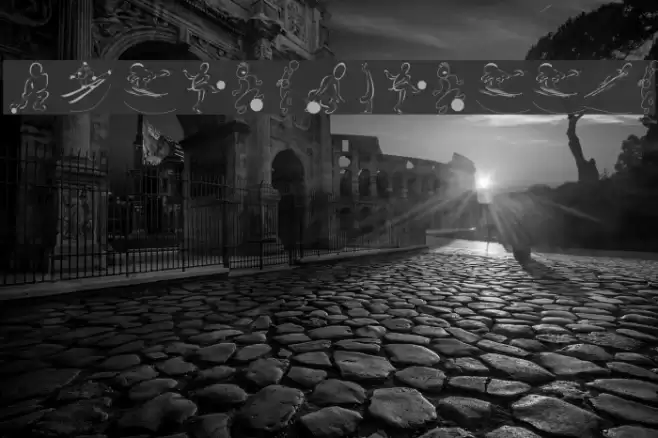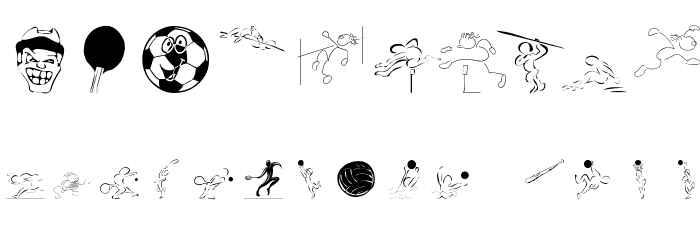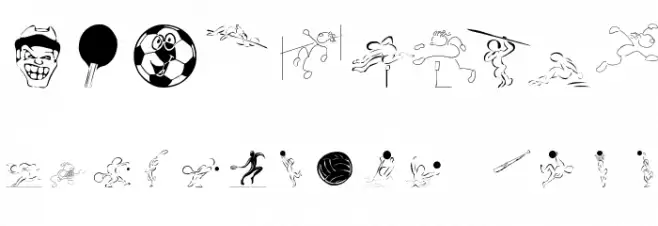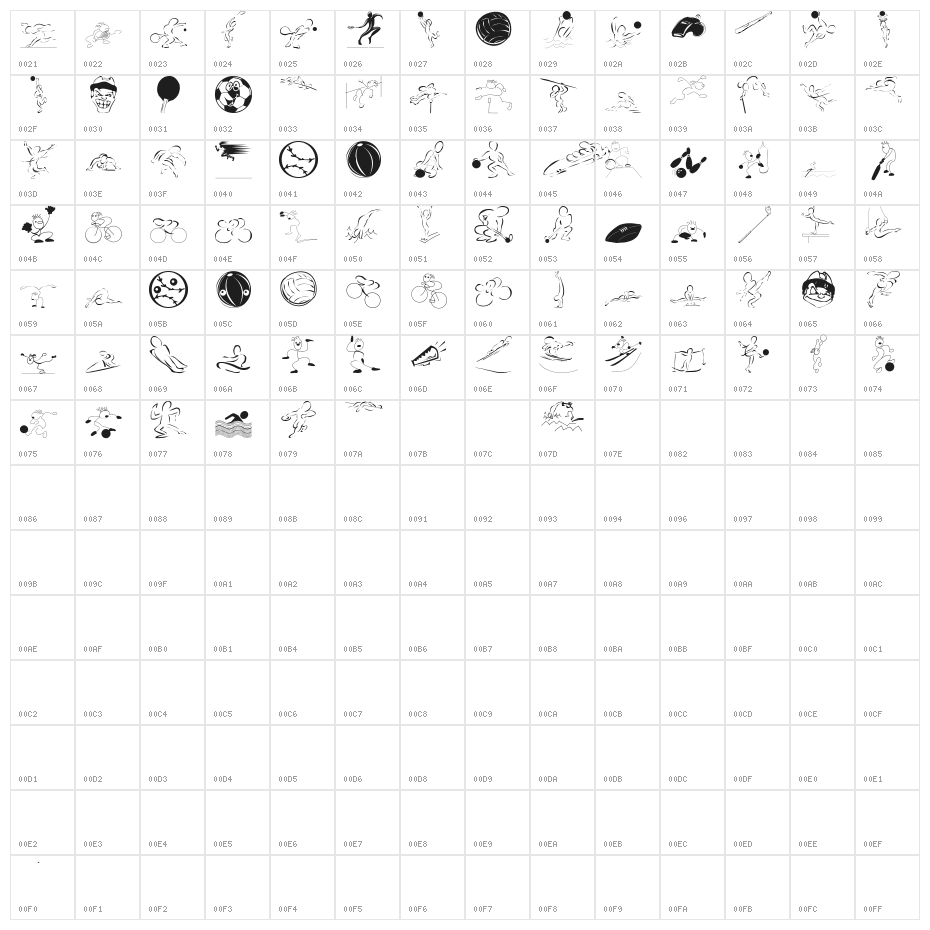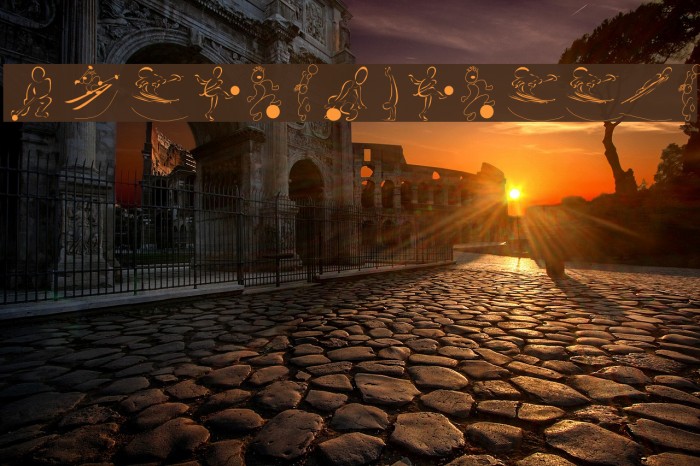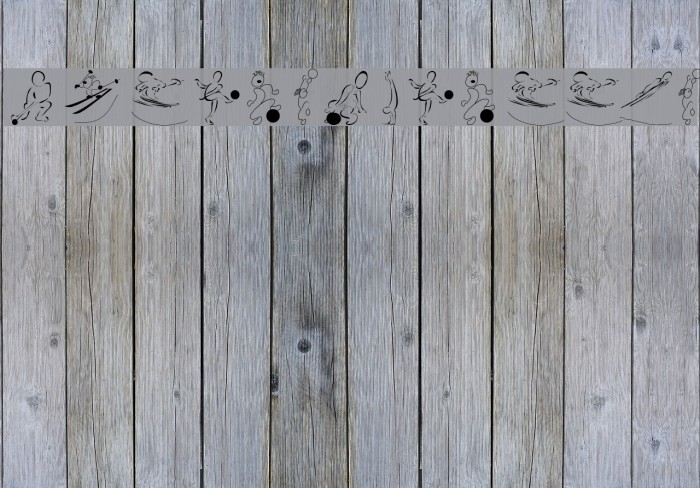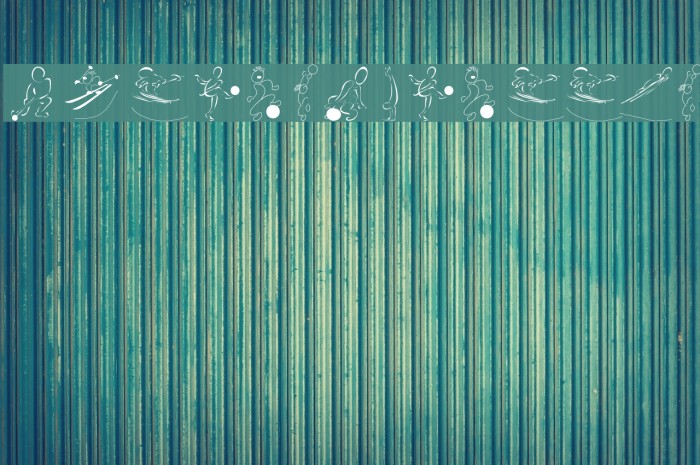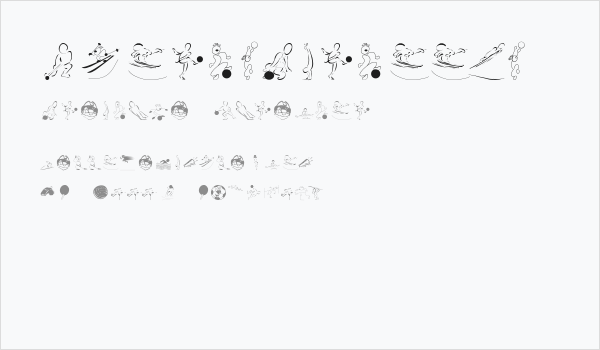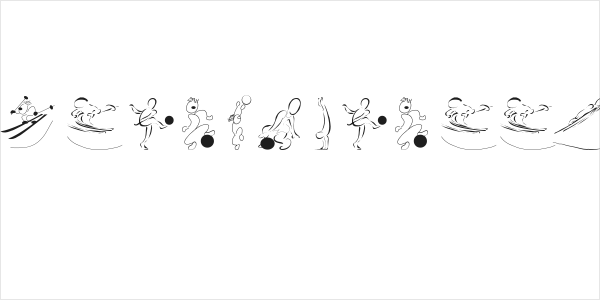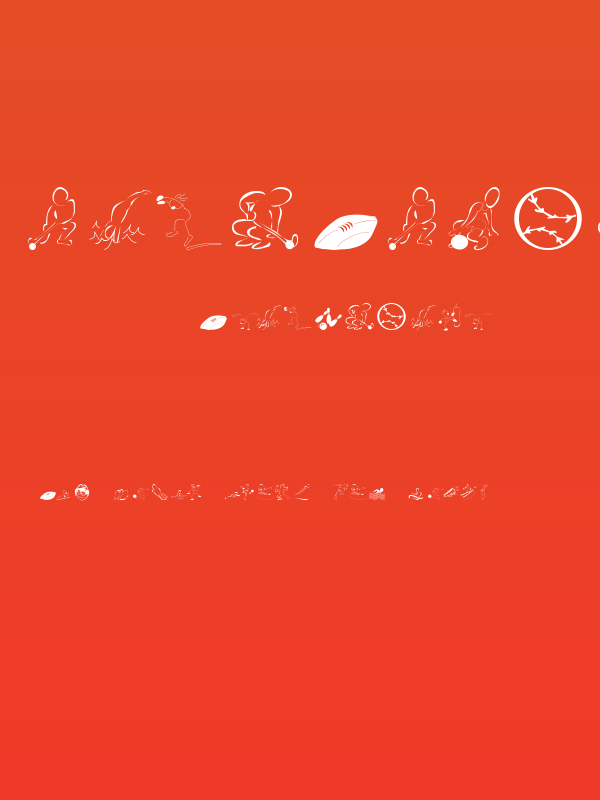
SportsCartoons Font
SportsCartoons Description
A playful and illustrative font featuring cartoon-style depictions of various sports and athletic activities, using dynamic line art and exaggerated forms to represent movement and energy.
Cartoonish sports-themed dingbat font with energetic line drawings from Uncategorized fonts.
- Proposed Projects: Children's sports event posters, playful branding, educational materials, activity books, themed party invitations.
- Overall Style: Playful, Cartoonish, Decorative
- Use Case: Logos, Posters, Themed Graphics, Educational Materials